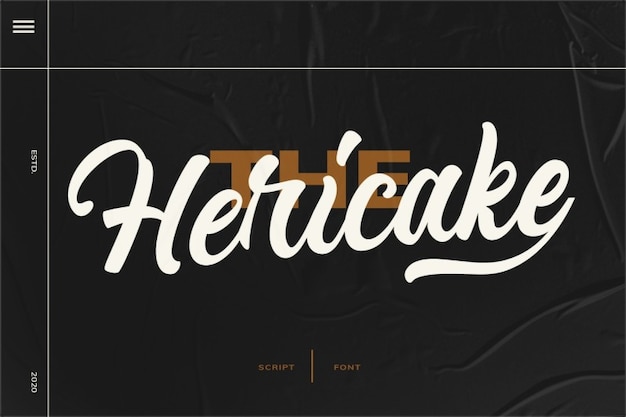
Hericake Font
TypeTemp Studio
The font that seamlessly marries calligraphic elegance with cool modern vibes. Its letters are a fusion of artistic strokes and contemporary design. With every character, you're transported to a world of sophisticated charm. 'Hericake' adds an air of stylish flair to your text, where each letter is a brushstroke of elegance and modern coolness, creating a typographic masterpiece that's both timeless and refreshingly current.